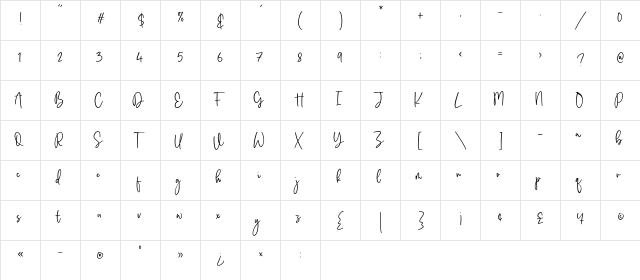
Howling Sinister Regular
Design Context for Howling Sinister Typeface
Howling Sinister is a composed and adaptable typeface that performs quietly and consistently across a wide range of design contexts.